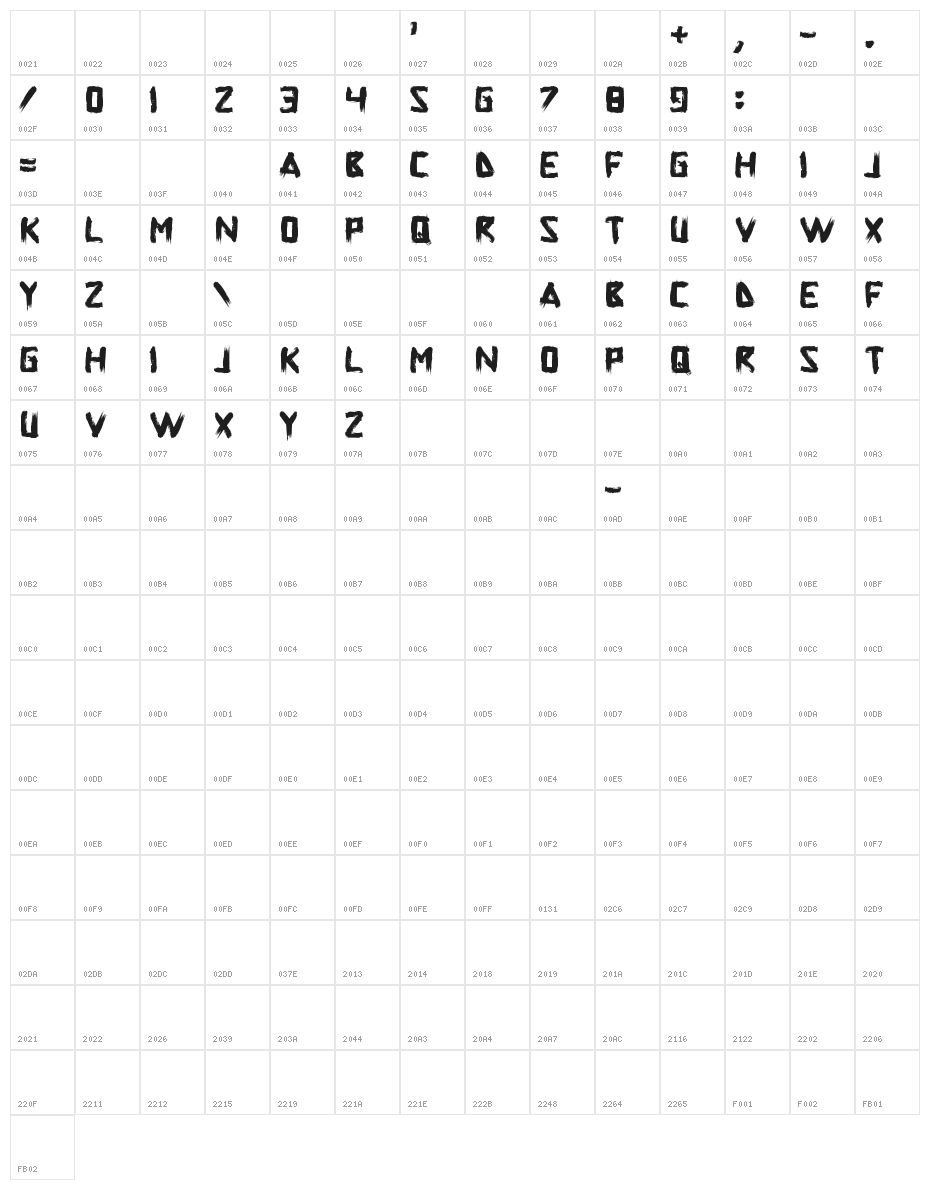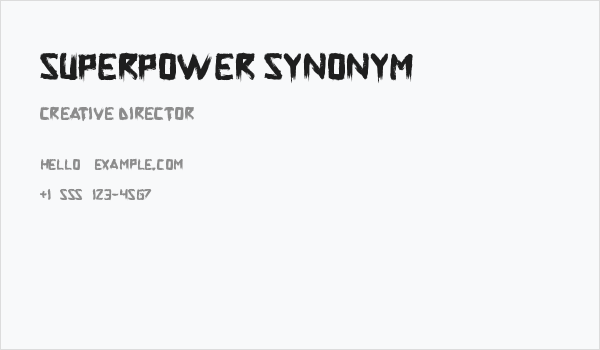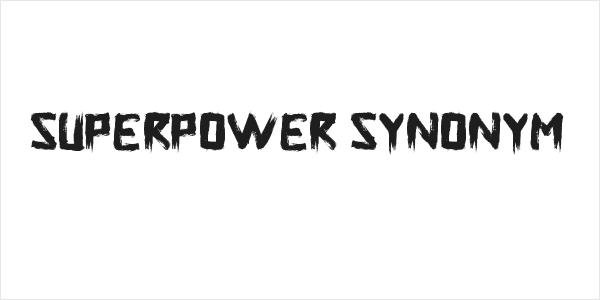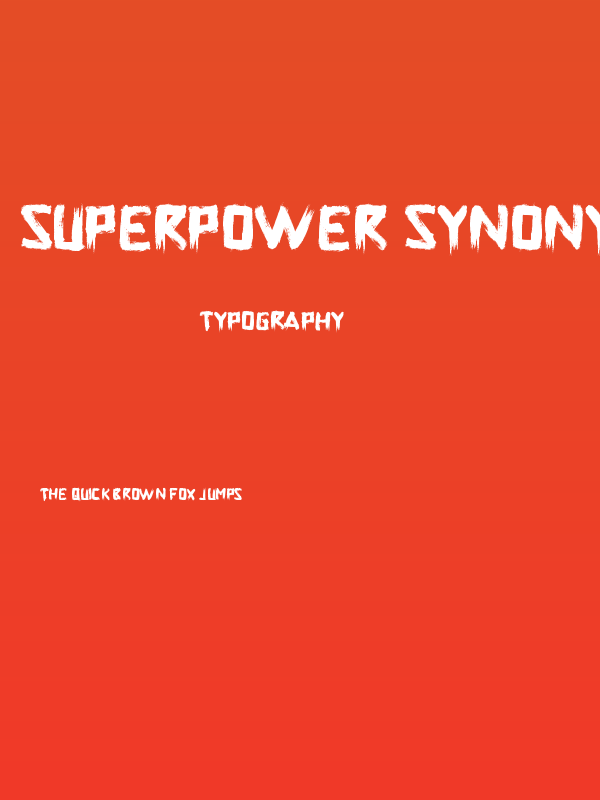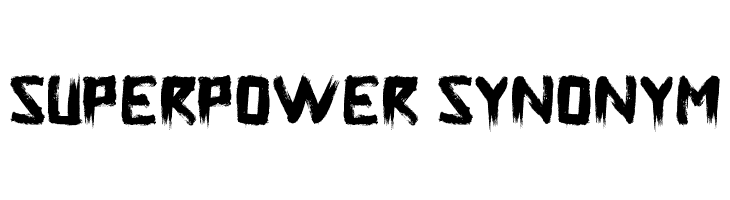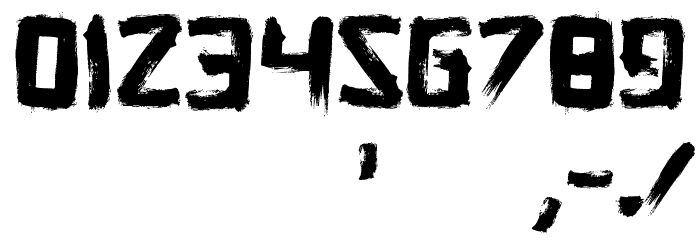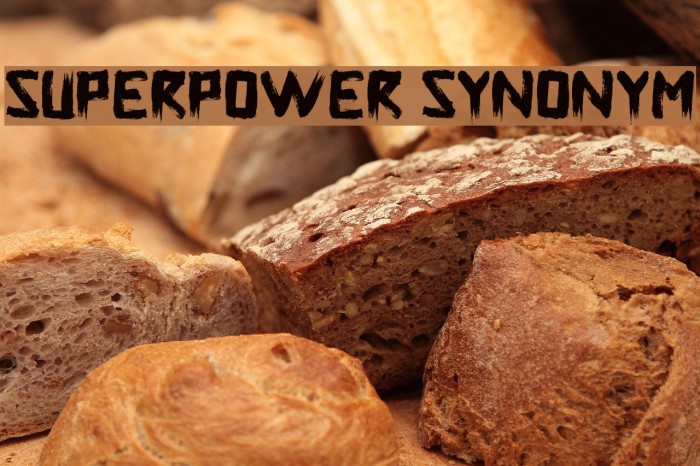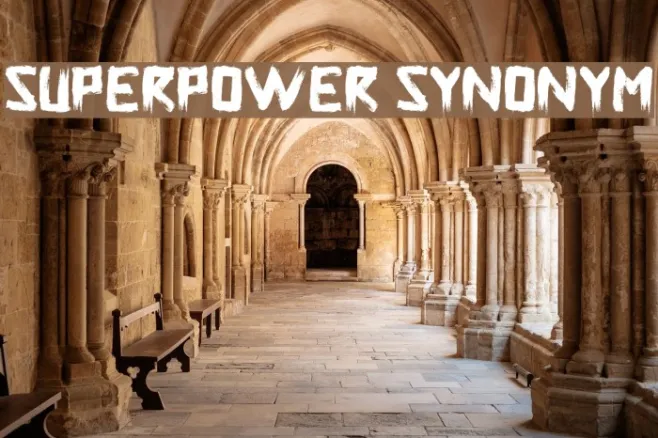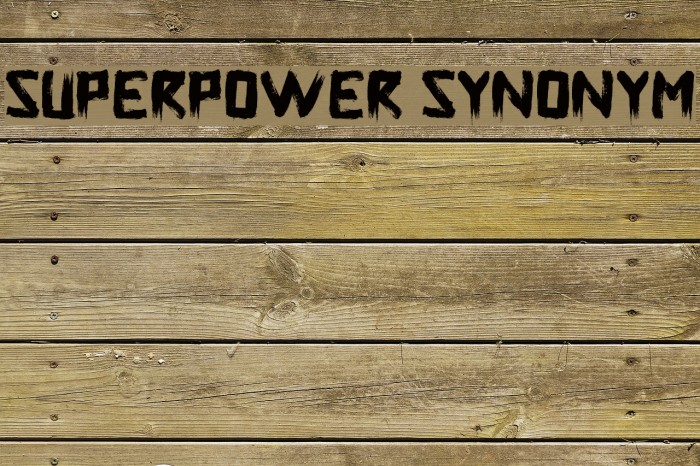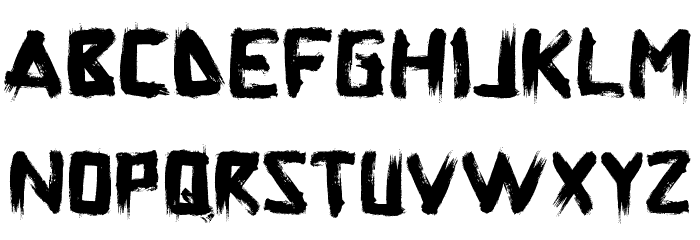
Superpower Synonym Font
Superpower Synonym Description
This font features a bold, brush-stroke style that exudes energy and dynamism. Each character is crafted with a rough, textured appearance, reminiscent of hand-painted calligraphy. The strokes are uneven, adding a sense of movement and spontaneity. The uppercase and lowercase letters maintain a consistent style, with sharp angles and a slightly condensed form. Numbers and special characters follow the same aesthetic, ensuring uniformity across all glyphs. The font's rugged and artistic look makes it ideal for projects that require a bold statement or an edgy, creative touch.
| Overall Style | Modern, Artistic |
| Proposed Projects | Ideal for posters, album covers, graffiti art, and branding that requires a bold, artistic flair. |